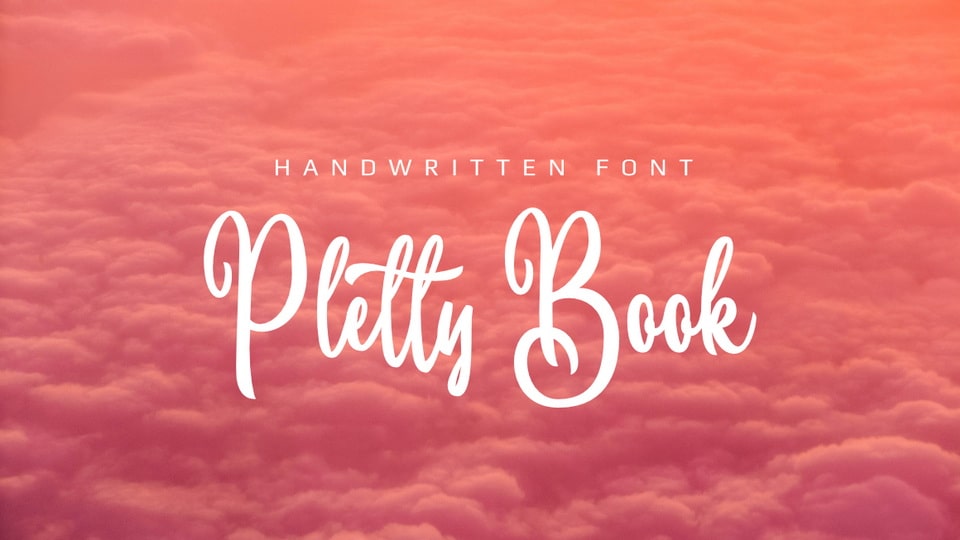
Download Pletty Book font, a lovely handwritten typeface with a trendy, natural and gentle look. Pletty Book font is perfect for making your holiday celebration stand out because it will perform for purposes such as wedding invitation, party, graduation, birthday, gathering, etc.